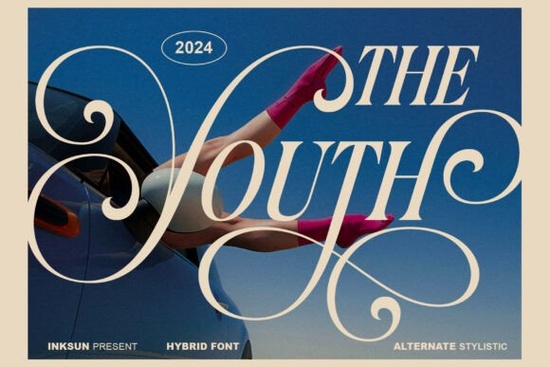
If you're looking for a font that feels both timeless and fresh, The Youth Font stands out as a versatile choice for creative projects. It’s not just another stylish typeface it’s a hybrid design that blends classic editorial balance with bold artistic flair. Whether you’re working on luxury branding, fashion visuals, or unique print designs, this font brings a distinctive energy to your work.
What makes The Youth Font special?
At first glance, The Youth Font catches your eye with its dramatic swashes and delicate hairlines. These features give it a sense of movement and elegance, almost like handwriting frozen in time. But beyond the visual appeal, it’s built with careful attention to spacing and rhythm making it readable even at smaller sizes or when used in complex layouts.
It’s ideal for situations where you want to make a statement without overwhelming the viewer. Think of it as the perfect companion for high-end magazine covers, fashion photography overlays, or premium product labels. The font carries a quiet confidence that elevates any project it’s part of.
How can I use The Youth Font in my work?
Designers across different fields find ways to make it work in their projects. Here are a few real-world uses:
- Luxury branding: Use it for logos, packaging, or website headers to add a touch of sophistication.
- Fashion & lifestyle content: Perfect for overlaying text on photos especially those with a modern, editorial feel.
- Print-on-demand products: Great for T-shirts, mugs, or wall art where you want something artistic but still legible.
- Magazine or zine layouts: Its structure supports creative typography while keeping readability intact.
You’ll notice that the font works well in both uppercase and lowercase forms, though the uppercase version really shines when you want to emphasize impact.
Is The Youth Font easy to use?
Yes, especially if you’re already familiar with digital fonts. It comes in multiple weights and styles, so you can choose the right tone for each project. Many users appreciate how consistent the spacing is across characters no awkward gaps or overlapping letters.
Final thoughts: Is it worth trying?
If you're looking for a font that adds personality without sacrificing clarity, The Youth Font delivers. It’s not flashy for flashiness’ sake it has purpose behind every curve and stroke. Whether you're a small business owner crafting brand materials, a crafter making custom prints, or a designer pushing creative boundaries, this font fits naturally into many workflows.
It’s not a one-size-fits-all solution, but when the moment calls for something bold yet refined, it’s a reliable choice.